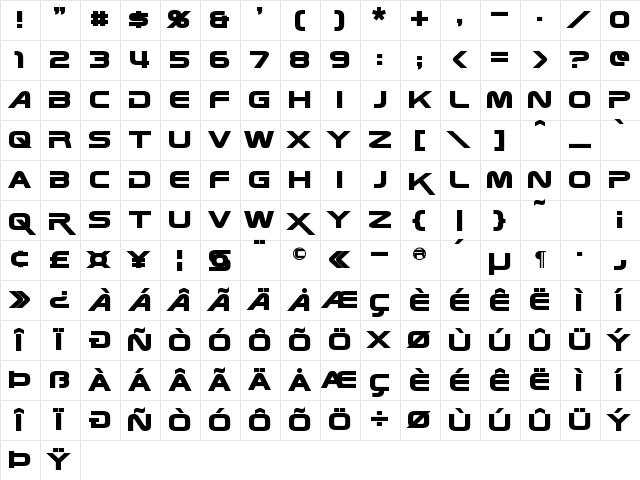
Zebulon Bold Free Font
Zebulon Bold
Foundry: Pixel Sagas
Designer: Neale Davidson
Year: 2016
Zebulon Family
Zebulon Bold
Design Context for Zebulon
Zebulon is a composed and adaptable typeface that performs quietly and consistently across a wide range of design contexts. Its bold stroke weight gives it real presence on the page.